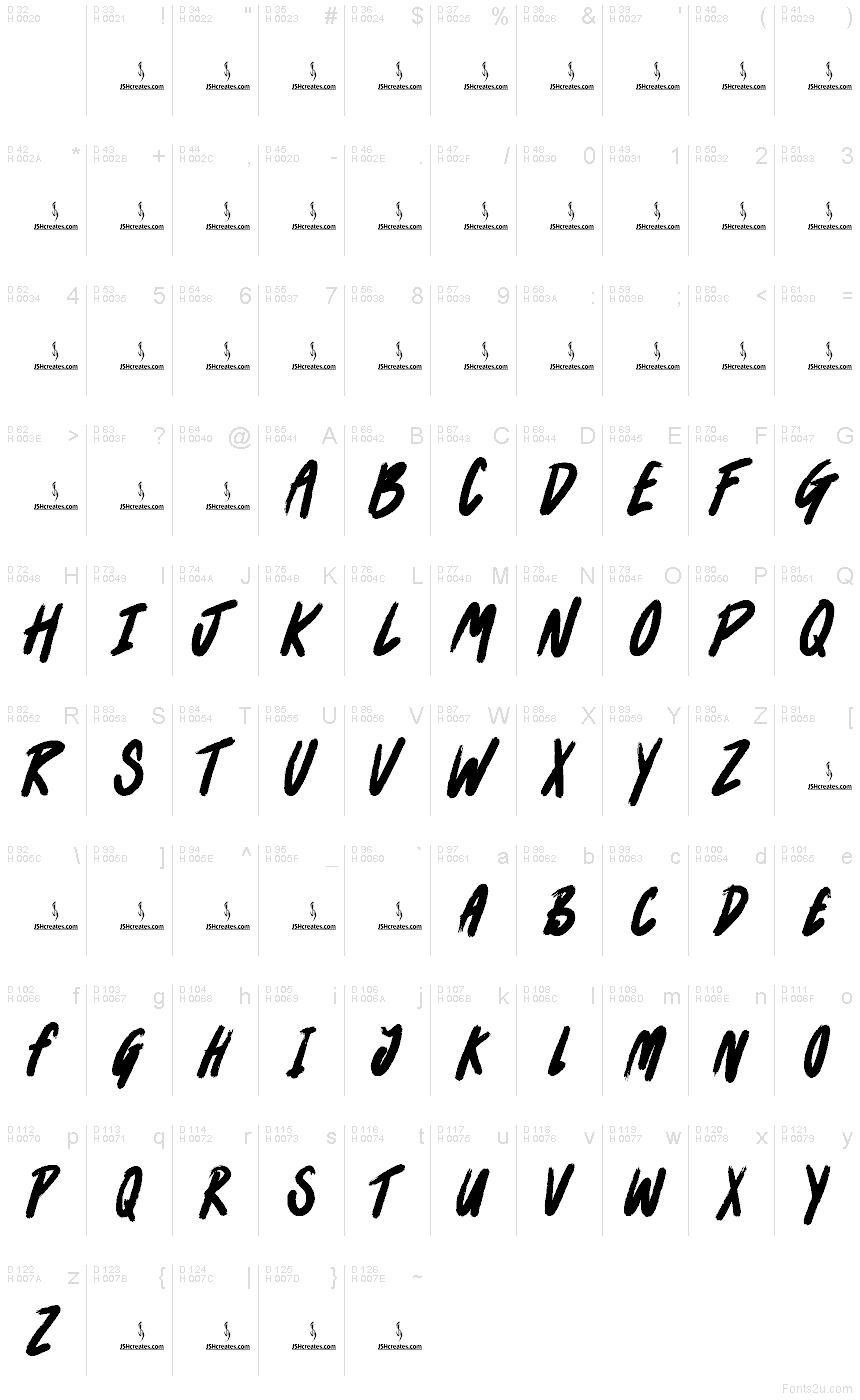
Rawr Mamba
Rawr Mamba font by JSH creates is a modern brush font styled with rounded, interconnected strokes and bundled with stylish lengthened swashes that look energetic. The bold condensed set of this resource is effortlessly legible given its clear shapes and high contrast all of which shows a contemporary flair with a casual aesthetic.